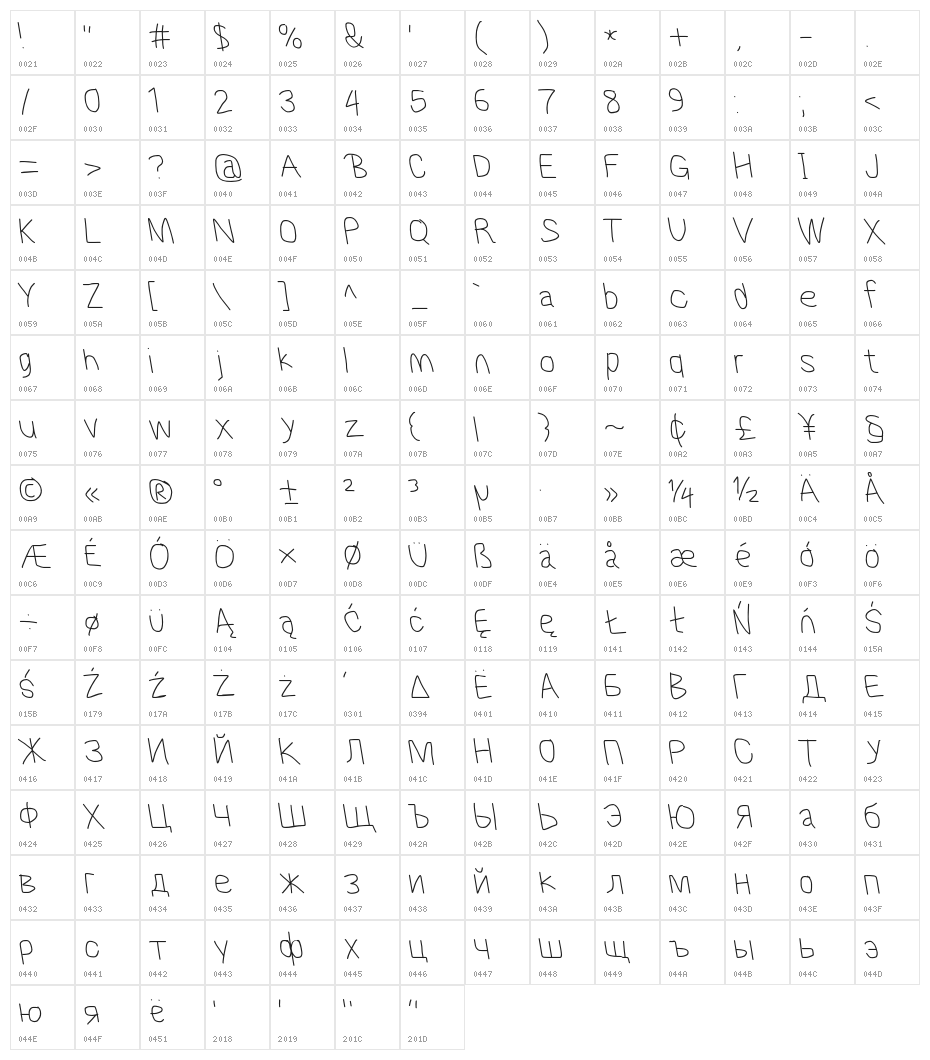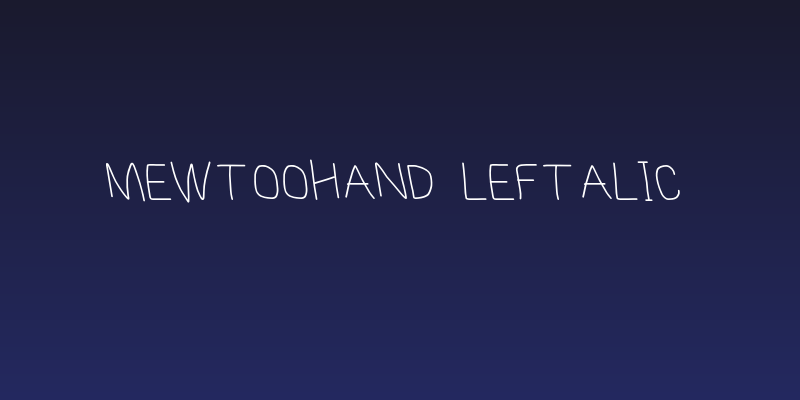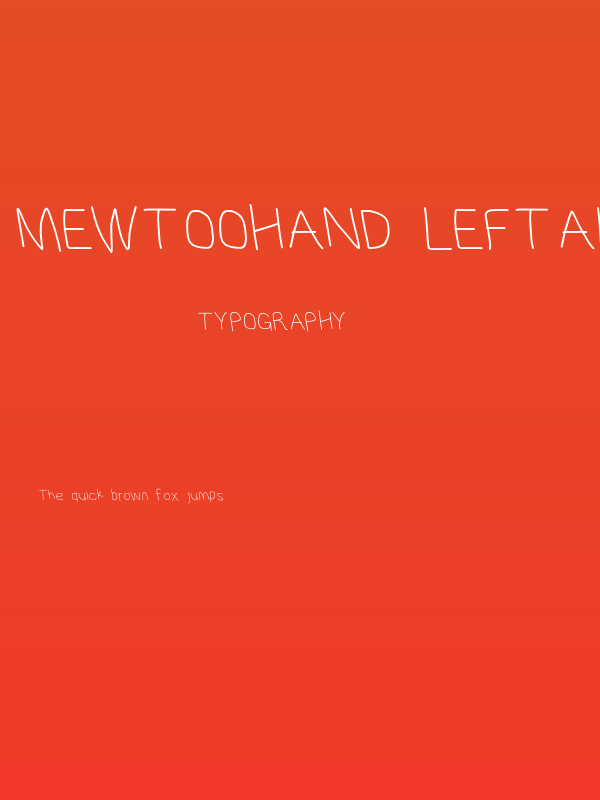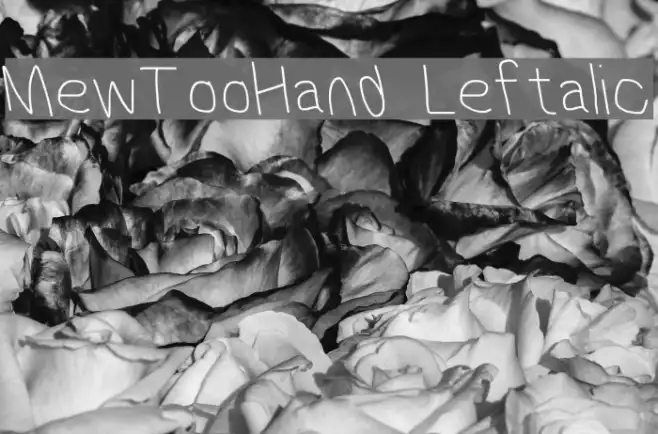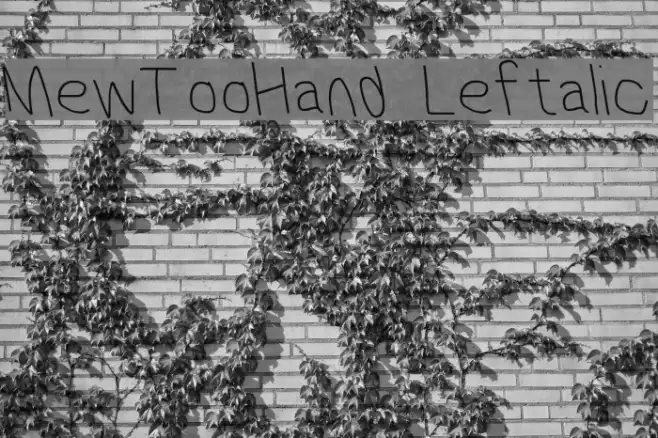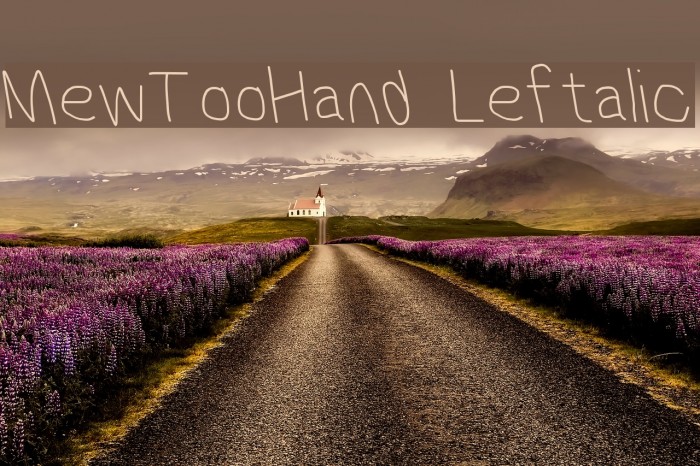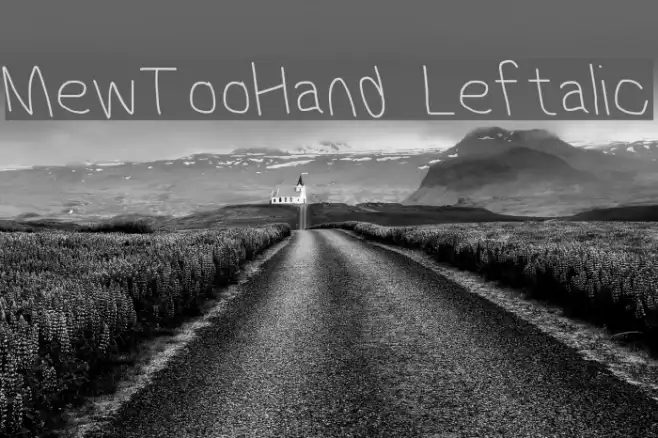
MewTooHand Leftalic Font
MewTooHand Leftalic Description
This font features a playful and casual handwritten style, characterized by its irregular and slightly tilted letterforms. The strokes are consistent in width, giving it a uniform appearance despite its informal nature. The uppercase letters are tall and narrow, while the lowercase letters maintain a similar height, creating a cohesive look. Numbers and special characters follow the same style, ensuring versatility across different uses. The font's simplicity and charm make it suitable for projects that require a personal touch, such as invitations, greeting cards, or children's book covers.